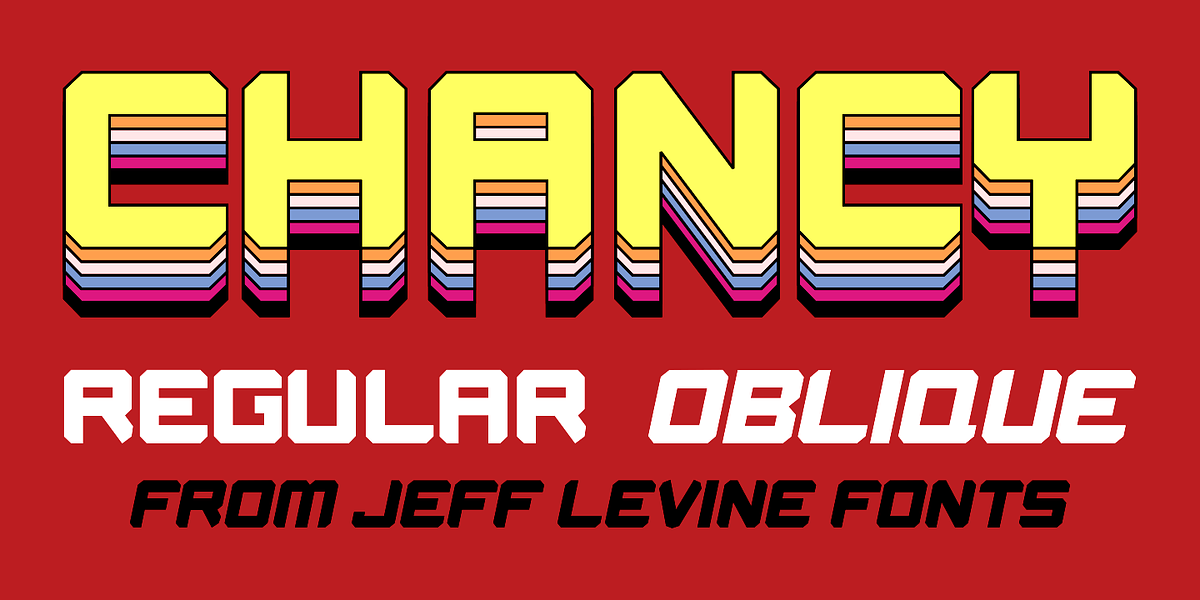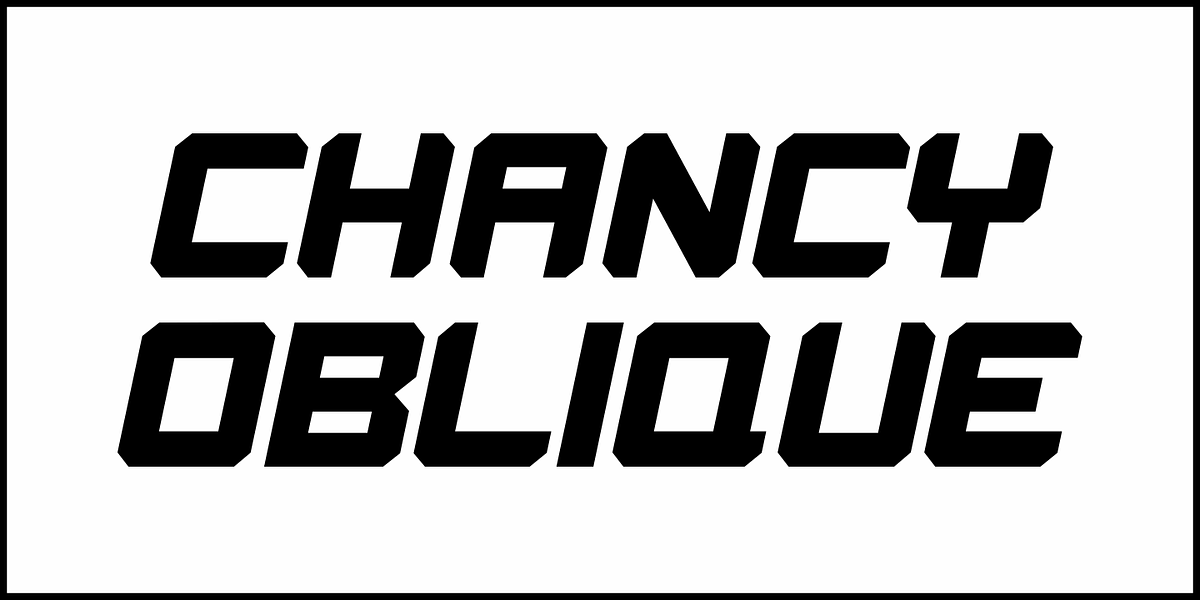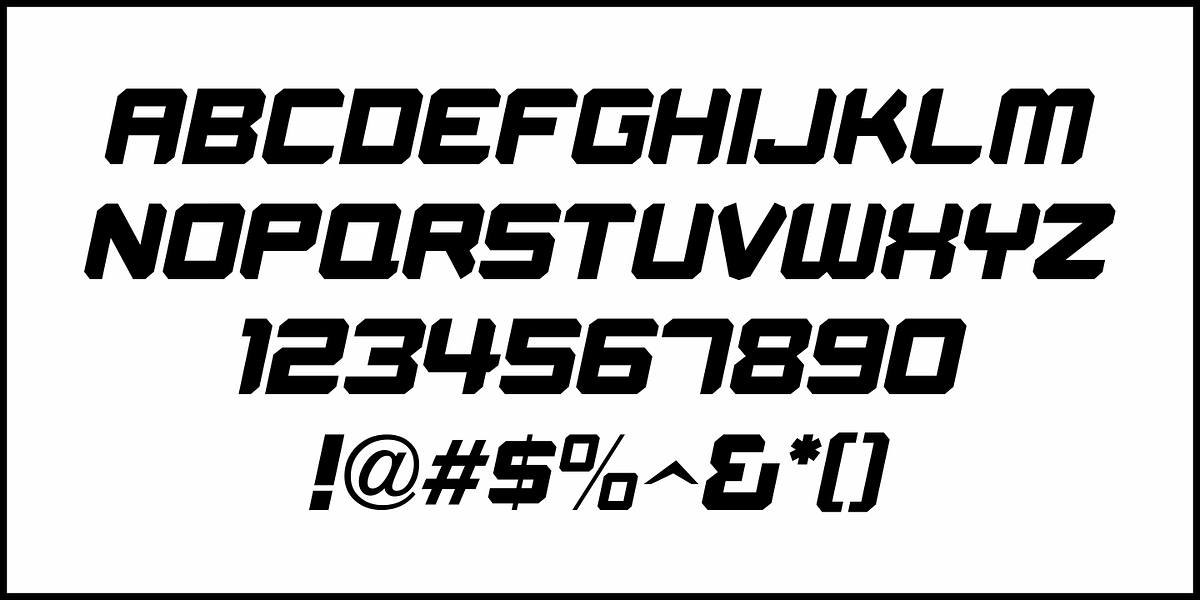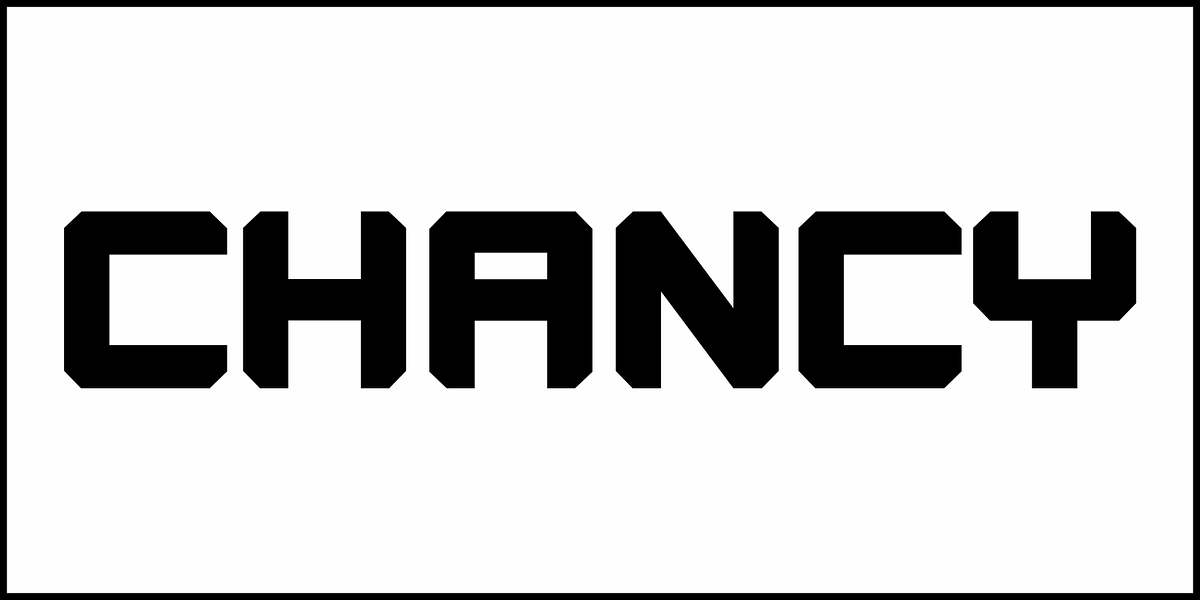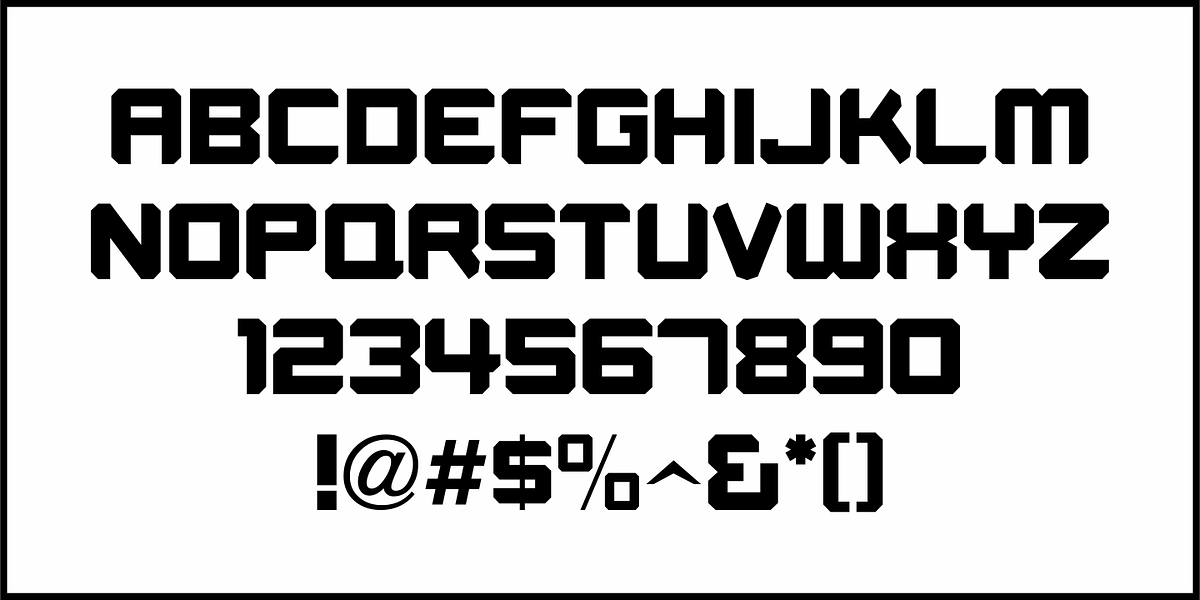
Chancy JNL
A short-lived TV game show from 1977 called “Second Chance” has its logo lettered in a bold, block type style with slightly chamfered corners.
This inspired Chancy JNL, which is available in both regular and oblique versions.